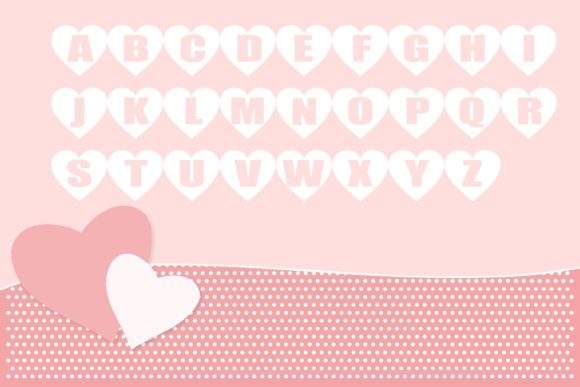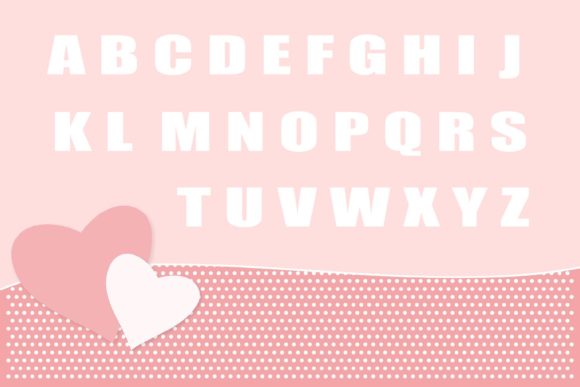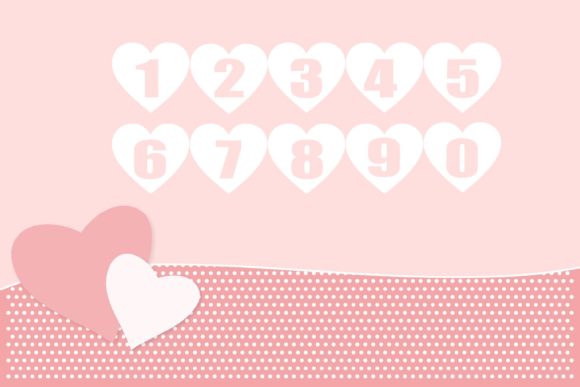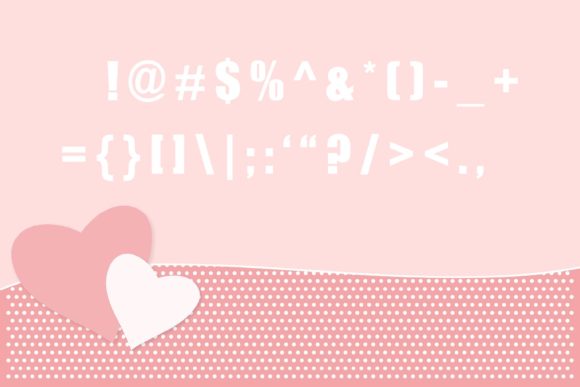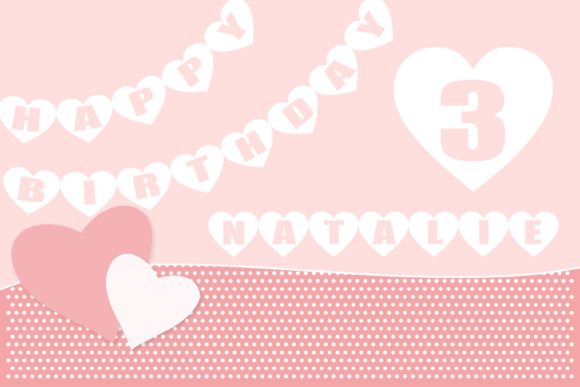
Introducing Cutie Heart Natalie Font: Add a Romantic Touch to Your Crafting Projects
Are you a designer or crafter looking for a unique and beautiful font to add a romantic touch to your projects? Look no further than Cutie Heart Natalie Font! This stunning display font is heart-shaped and perfect for creating lovely and charming crafts. In this article, we’ll dive into the features and benefits of Cutie Heart Natalie Font and explore how you can use it to elevate your crafting projects.
What is Cutie Heart Natalie Font?
Cutie Heart Natalie Font is a beautiful display font designed to add a touch of romance and whimsy to your crafting projects. As its name suggests, this font features heart-shaped letters that are sure to capture the hearts of your audience. Whether you’re creating greeting cards, invitations, or other crafts, Cutie Heart Natalie Font is the perfect choice.
Key Features of Cutie Heart Natalie Font
- Heart-Shaped Letters: The most distinctive feature of Cutie Heart Natalie Font is its heart-shaped letters. Each letter is carefully designed to resemble a heart, adding a romantic and playful touch to your projects.
- Beautiful Display Font: Cutie Heart Natalie Font is a display font, making it perfect for headlines, titles, and other prominent text elements. Its large and bold design ensures that your text stands out and grabs attention.
- Perfect for Crafting Projects: Cutie Heart Natalie Font is specifically designed for crafting projects, making it an ideal choice for designers, crafters, and DIY enthusiasts.
How to Use Cutie Heart Natalie Font in Your Crafting Projects
Cutie Heart Natalie Font is versatile and can be used in a variety of crafting projects, including:
- Greeting Cards: Add a romantic touch to your greeting cards with Cutie Heart Natalie Font. Use it to create beautiful and heartfelt messages for loved ones.
- Invitations: Create stunning invitations for weddings, baby showers, and other special events using Cutie Heart Natalie Font.
- DIY Crafts: Use Cutie Heart Natalie Font to add a personal touch to your DIY crafts, such as scrapbooking, journaling, and paper crafting.
- Signs and Banners: Create eye-catching signs and banners with Cutie Heart Natalie Font, perfect for parties, events, and special occasions.
Benefits of Using Cutie Heart Natalie Font
Using Cutie Heart Natalie Font in your crafting projects offers several benefits, including:
- Unique and Eye-Catching Design: Cutie Heart Natalie Font features a unique and eye-catching design that sets it apart from other fonts.
- Romantic and Whimsical Touch: Add a romantic and whimsical touch to your projects with Cutie Heart Natalie Font, perfect for creating memorable and special crafts.
| Font Name | Cutie Heart Natalie Font |
| Author | KtwoP |